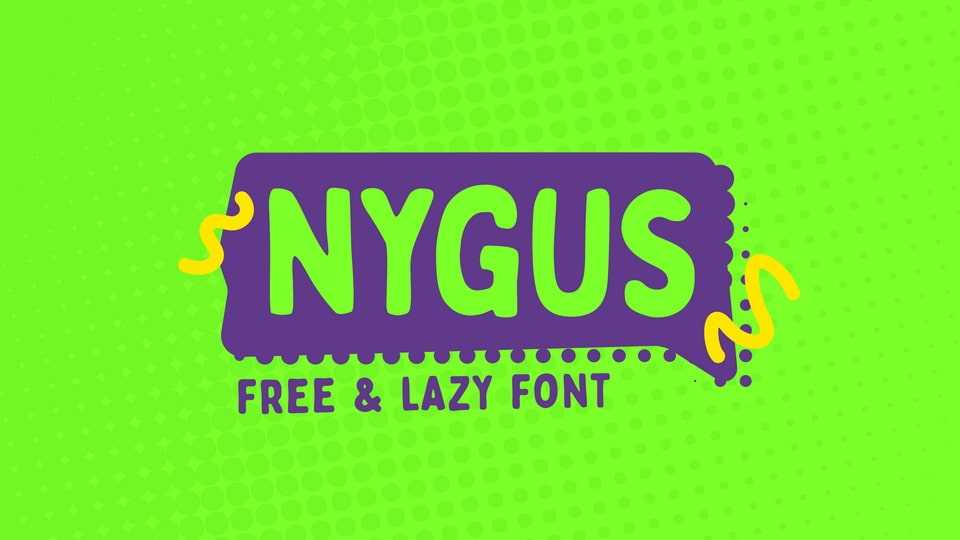
Download Nygus font, a distinctive display typeface with unique character and personality. Its design combines boldness and style, making it suitable for eye-catching titles, logos, headers and creative graphic projects.
Designer: Szymon Furjan